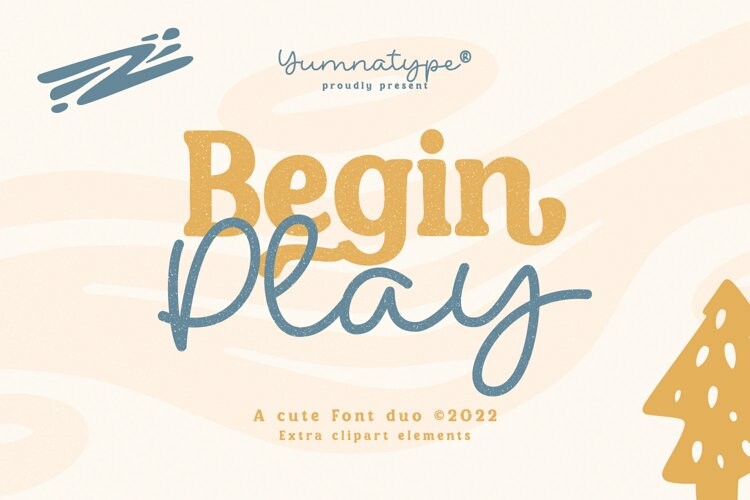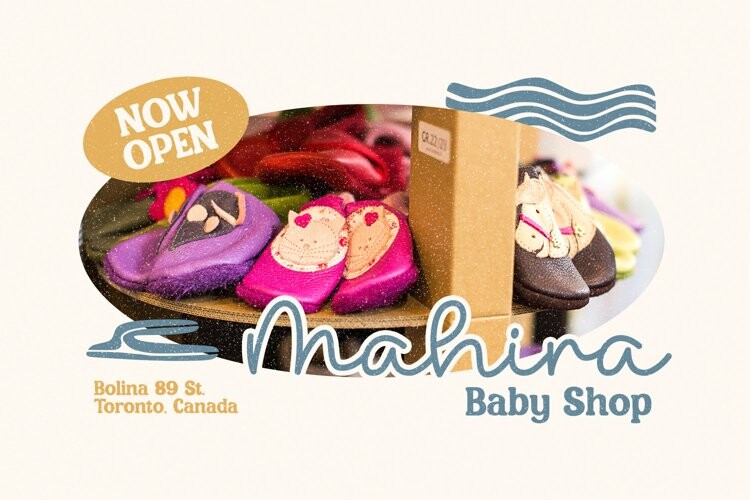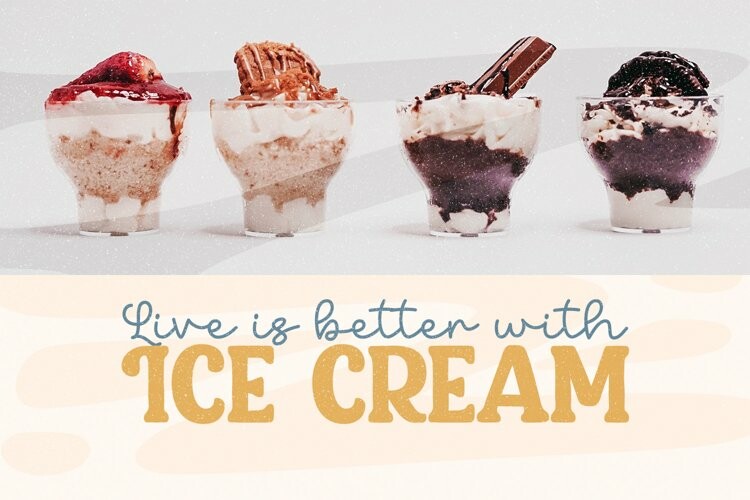
Begin Play Duo Font
Begin play is a font duo made from combination between script and display font style you can mix, match, and call your own. The script style has a cute touch that is well pair with the elegant sans serif font. This font duo maintain the readability even at small sizes.